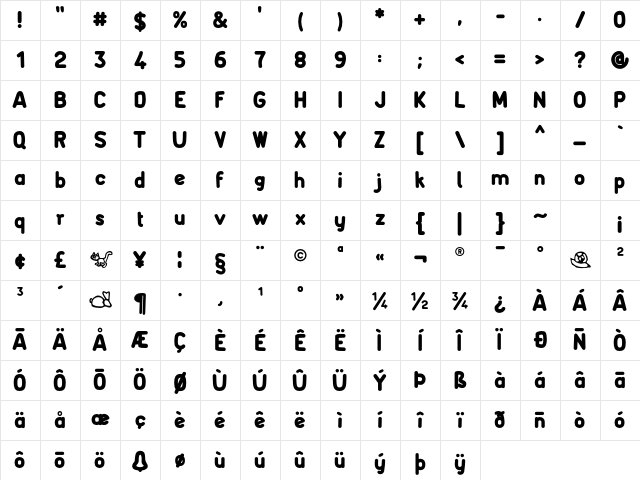
FontSoupGerman ExtraBoiled
Style: ExtraBoiled
FontSoupGerman Family
FontSoupGerman ExtraBoiled
Design Context for FontSoupGerman
FontSoupGerman is a composed and adaptable typeface that performs quietly and consistently across a wide range of design contexts.